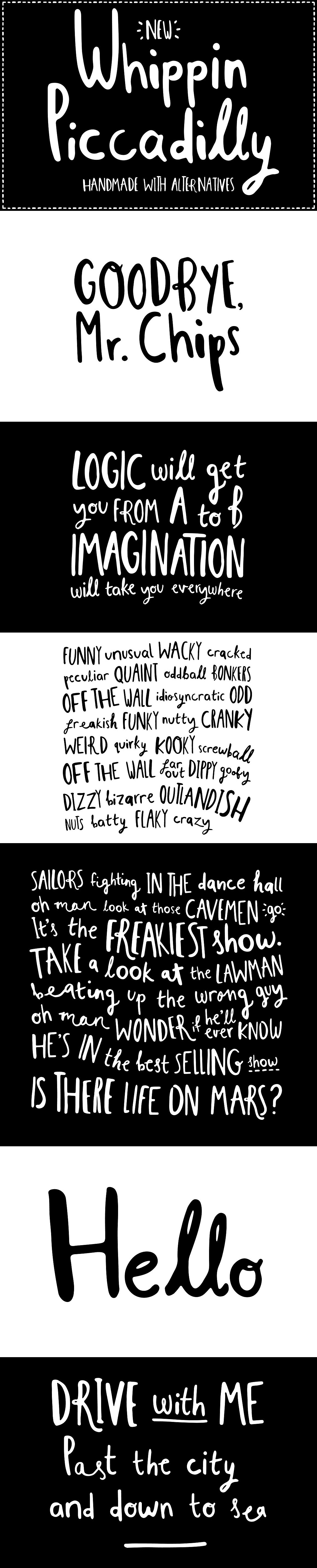
Script font Whippin Piccadilly
Whippin Piccadilly my latest handmade font with 4 contextual alternatives for each letter.
If you turn on contextual alternatives (opentype) you will notice letter combinations will be replaced with alternative glyphs. Some are joined up, some are just different.
A bit odd
This makes Whippin Piccadilly look much more random. Some letters are rotated one way, some the other. Some are fatter, some are thinner. It looks like a real oddball—I love that.
The real benefit is that you won't get the same letter twice in a word.
A charming little beast
The result of all the different characters is that Whippin Piccadilly has a happy go lucky personality. It looks fun and playful.
If this font were a celebrity it would be more Zach Galifianakis than Zac Efron.
The alternatives give it a quirky and sometimes mismatched appearance, but that’s part of the charm.
It’s ideal for book covers, posters, and packaging.
Whippin Piccadilly font includes;
- One weight regular
- Upper and lowercase
- Punctuation & Symbols
- Western European characters
- Central European characters
- South Eastern European characters
In total, it includes over 500 glyphs.